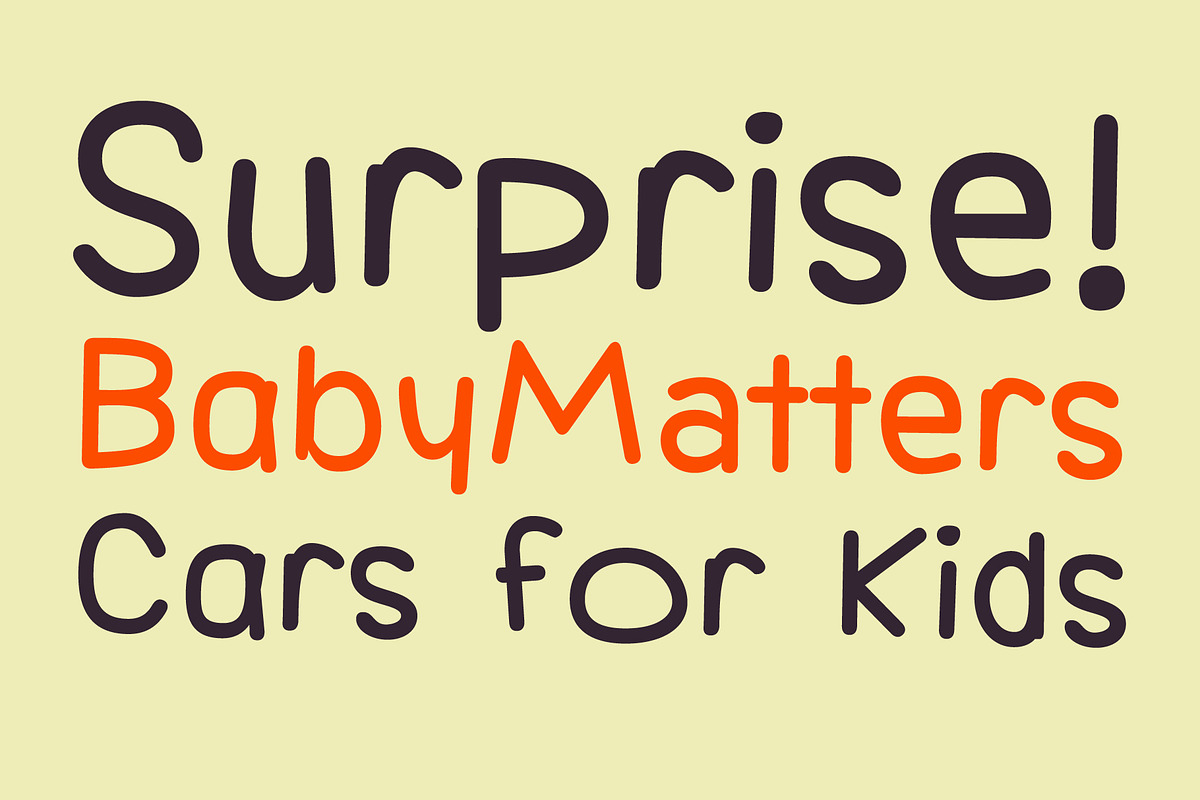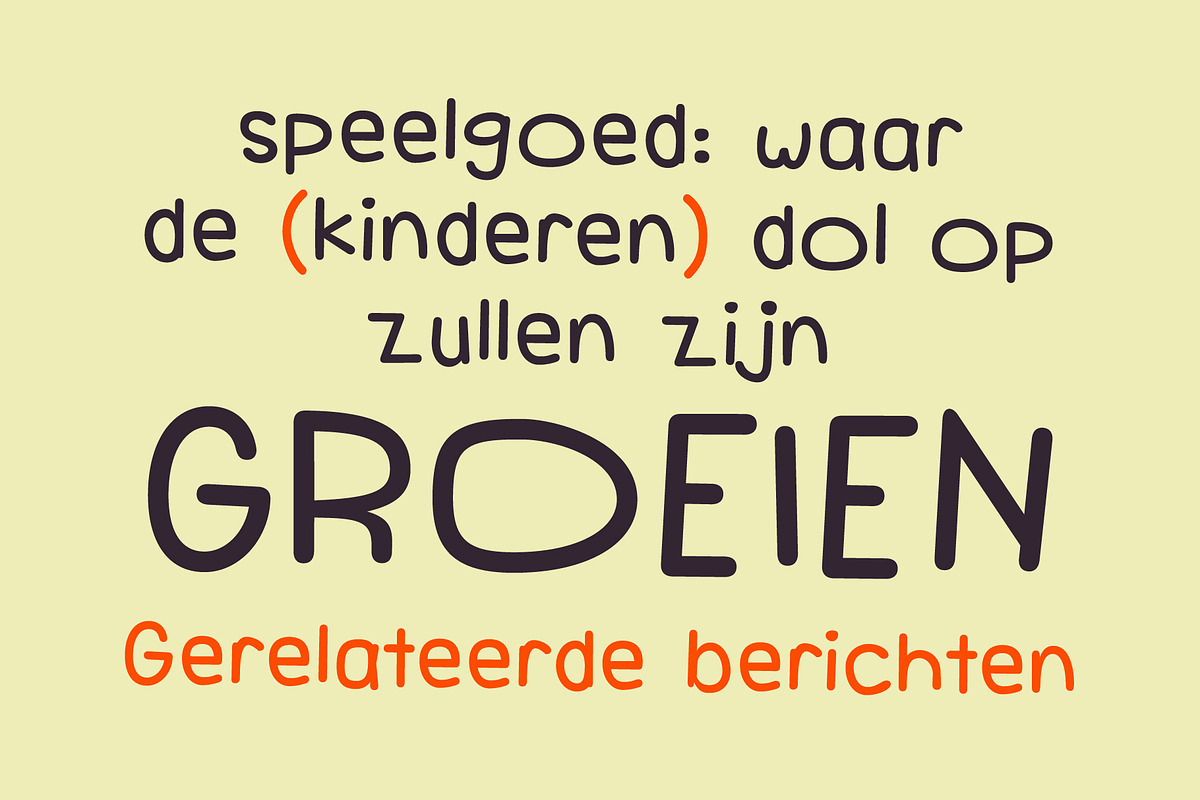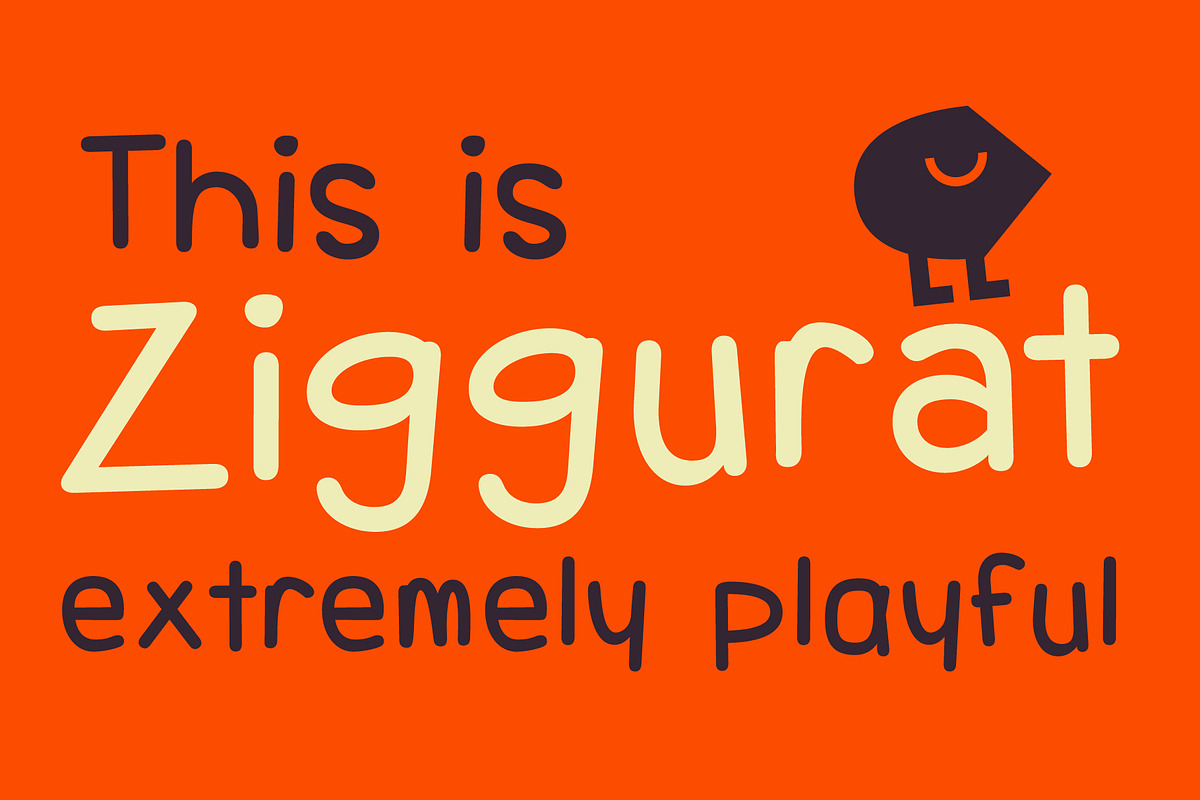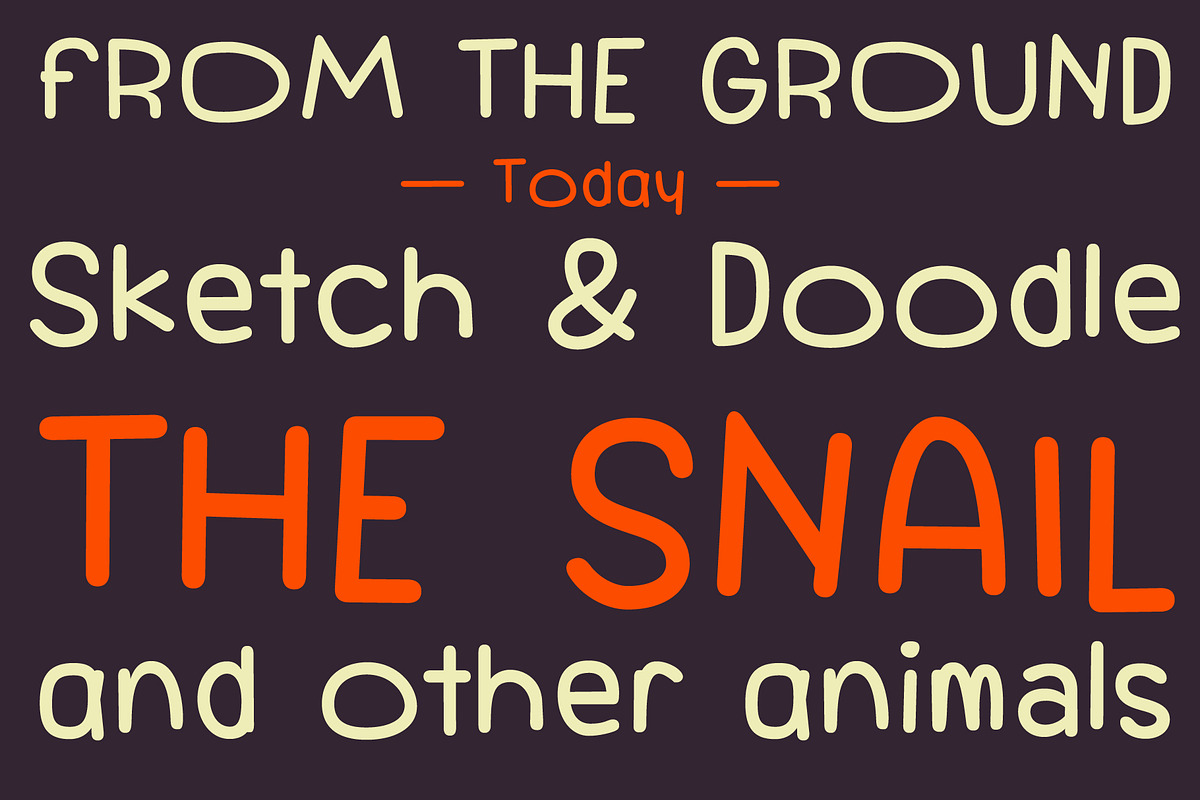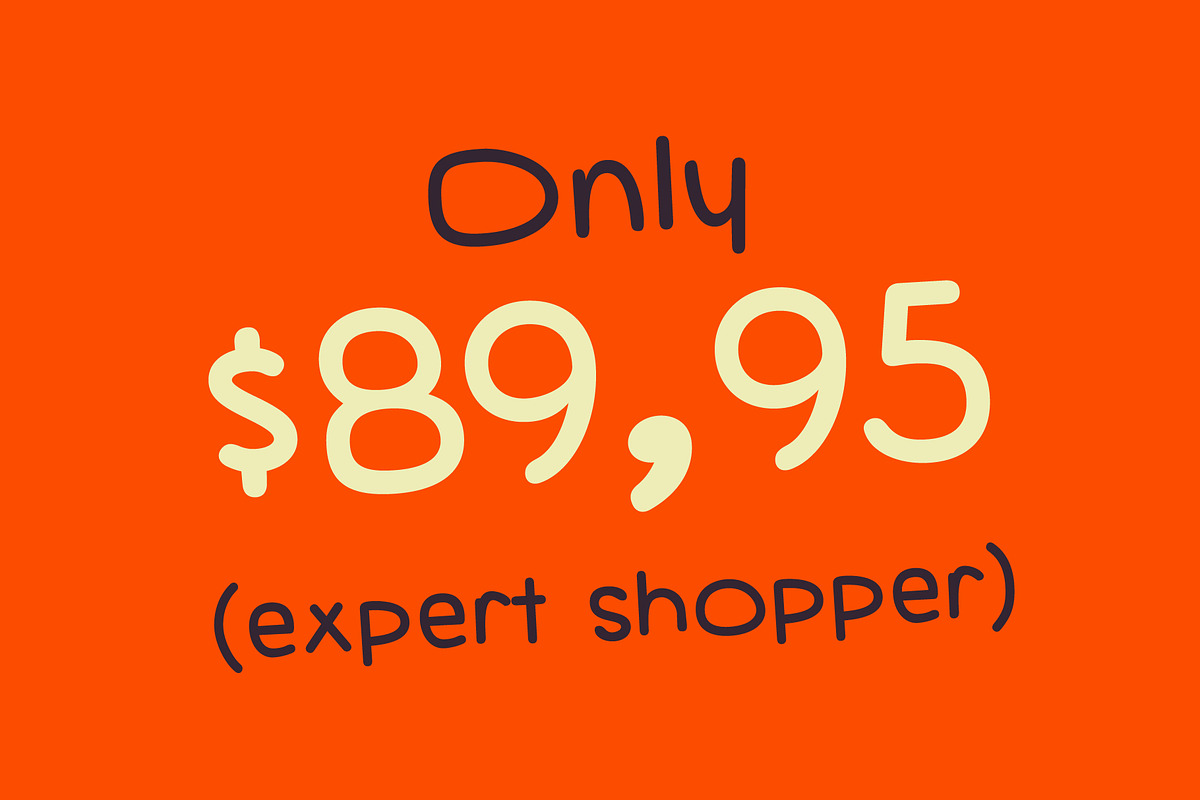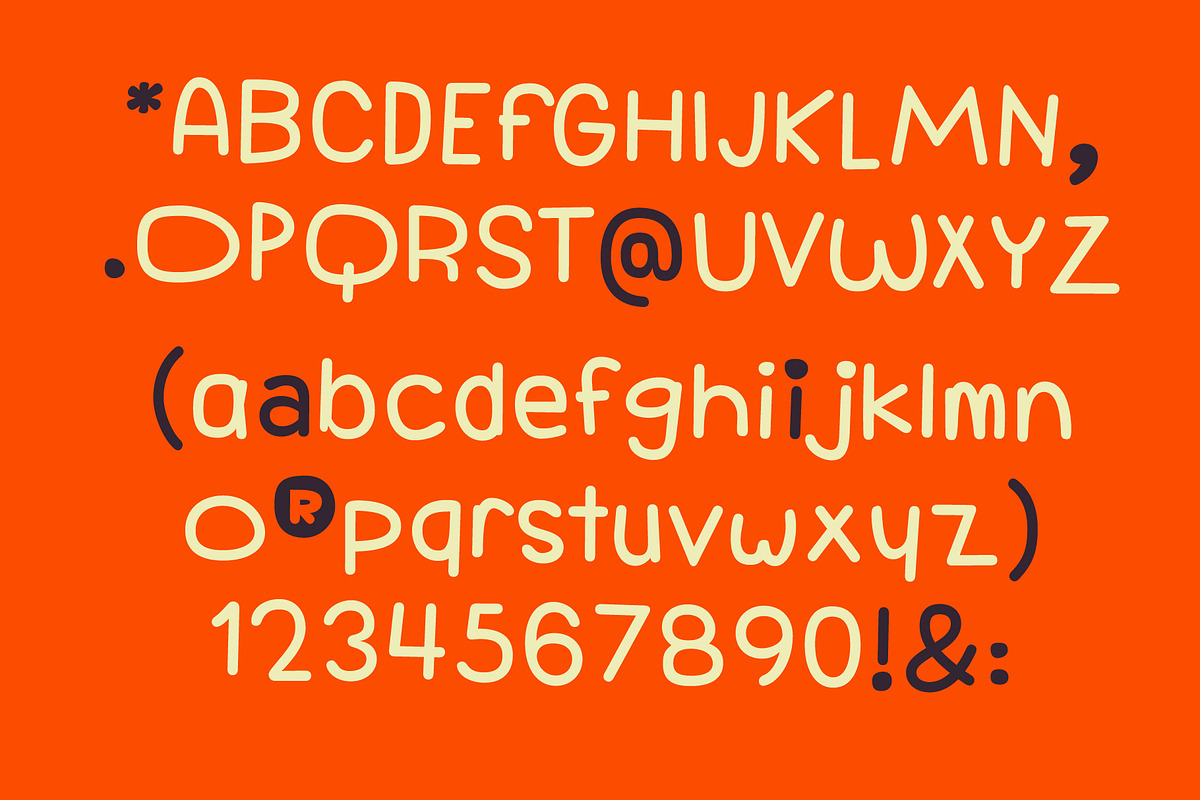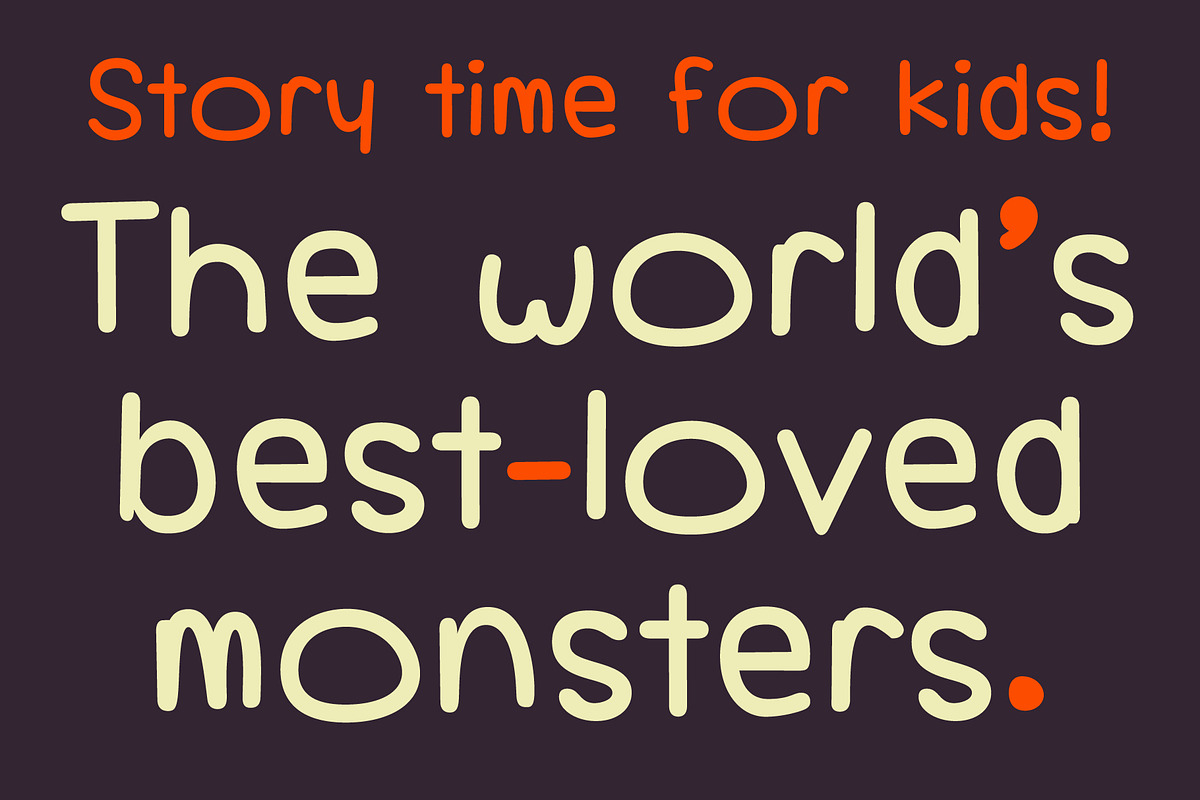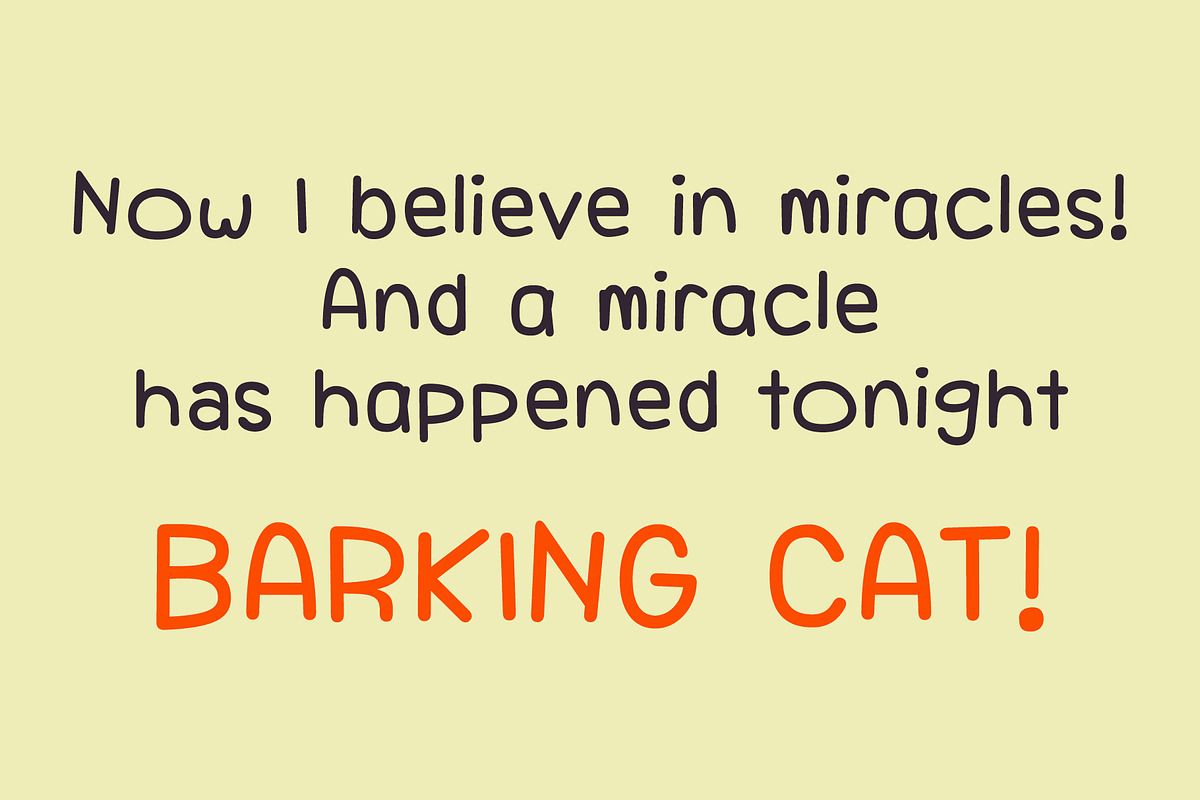
TOMO Ziggurat
TOMO Ziggurat! A handmade font that would love to play with your designs! Ideal for kids toys or packaging is involved — We would love to see this one on beautifully crafted book.